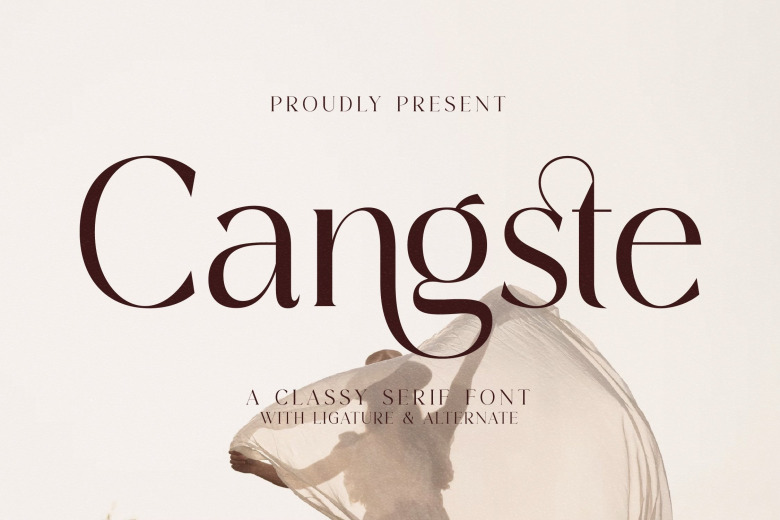
Cangste Font
Introducing Cangste Serif Font designed by Storytype – that belongs to the seriffed types that can also be regarded as modern and classic types with their own vibe and a subtle modernity feel. It is ideal for an elegant & luxury logo, book/motion picture title design, fashion-related project, magazine, clothing, typography logo, phrase, etc.
Cangste Serif Font